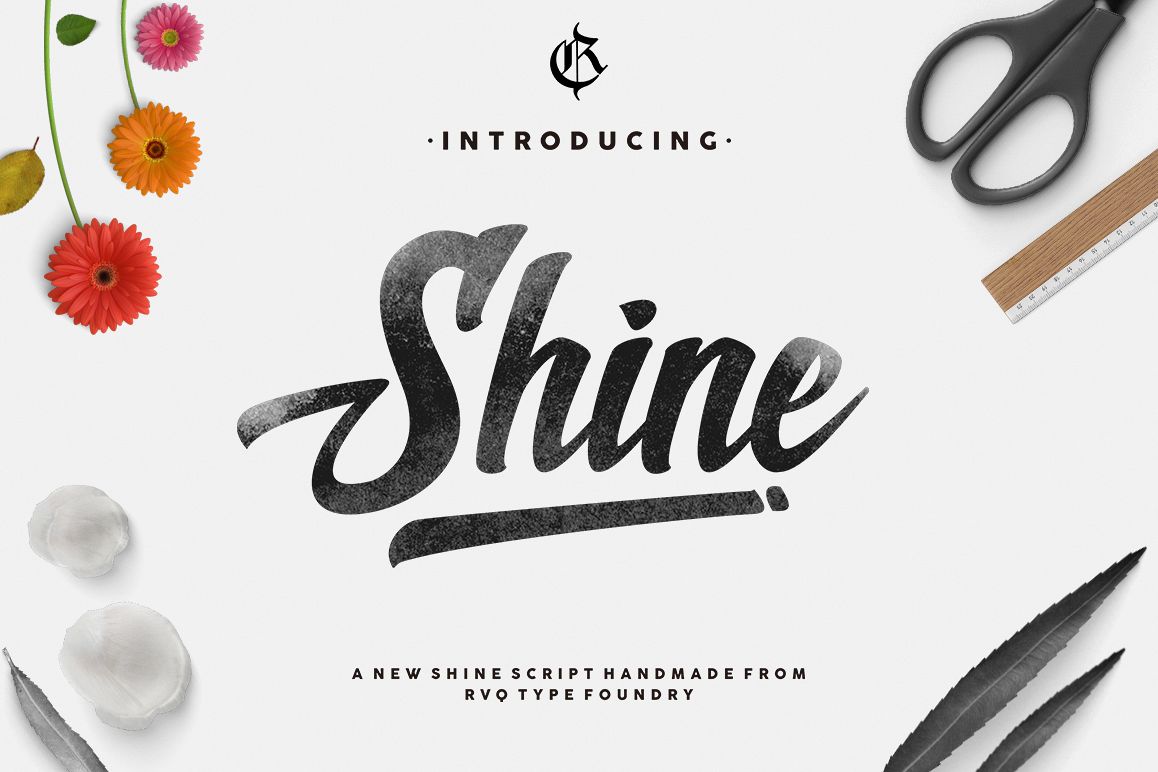
New shine script is new font from Rvq Typefoundry, elegant feel character set. To create the beautiful combination, just mix the uppercase and lowercase then mix with the alternative glyphs and playing with swash. The New shine script includes a full set of capital and lowercase letters, as well as multi-lingual support, currency figures, numerals, punctuation & some extra glyphs.Product Content :
Features :Character Set A-Z
- Numerals & Punctuations (OpenType Standard)
- Accents (Multilingual characters)
- Stylistic Alternates
- ligatures
- Swash
New shine script is suitable font for many creative products & designs.